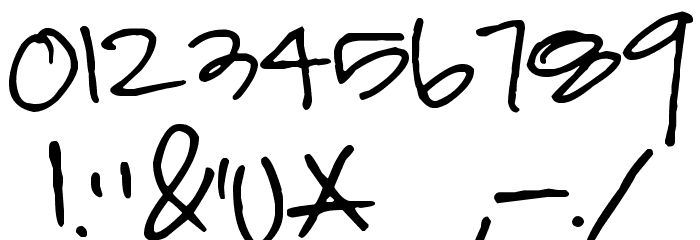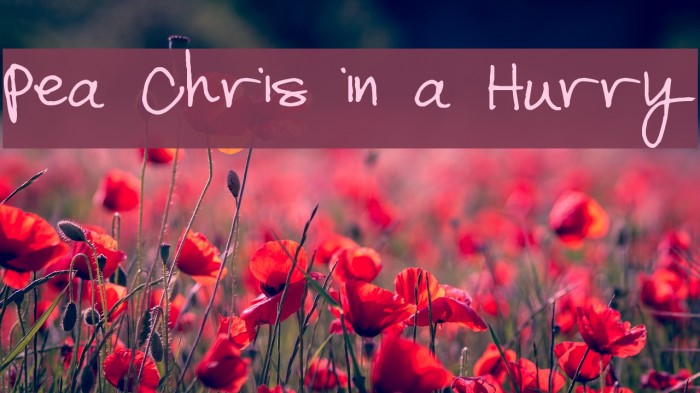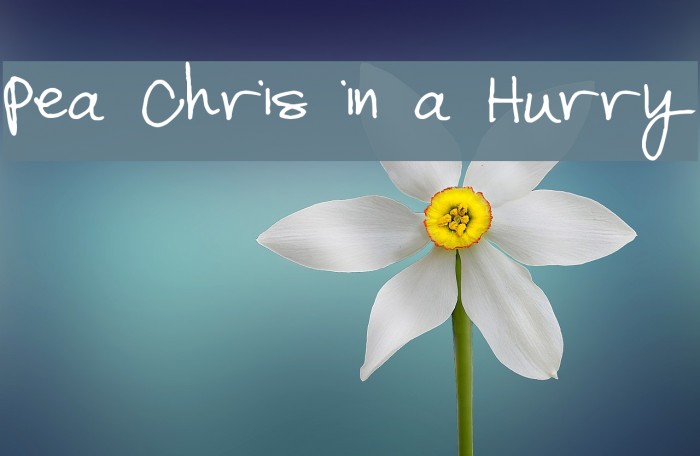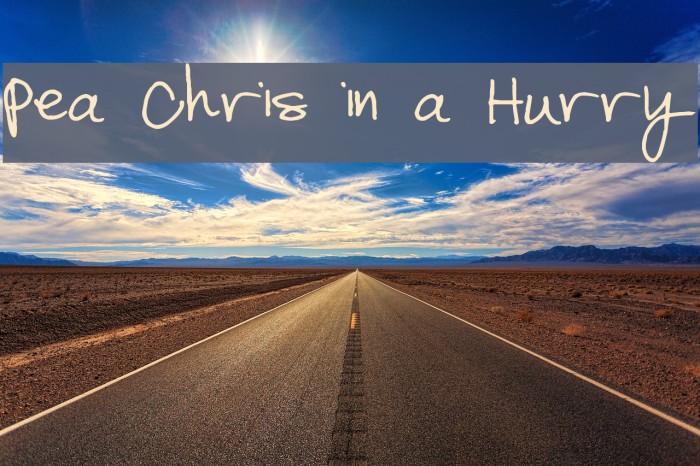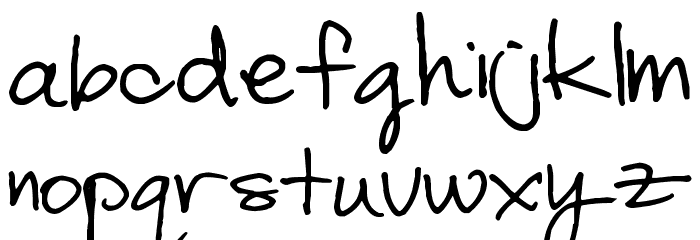
Pea Chris in a Hurry Font
Pea Chris in a Hurry Description
This font exudes a playful and casual handwritten style, characterized by its loose and informal strokes. The letters are unevenly spaced, giving it a spontaneous and lively appearance. The uppercase and lowercase letters maintain a consistent style, with slightly exaggerated curves and loops that add to its whimsical charm. The numbers and special characters follow the same playful design, making it versatile for creative projects. Its informal nature makes it ideal for projects that require a personal touch, such as greeting cards, invitations, or playful branding materials.
A playful, casual handwritten font with loose, informal strokes from Uncategorized fonts.
- Proposed Projects: Ideal for greeting cards, invitations, playful branding, and personal projects.
- Character Spacing: Wide
- Overall Style: Casual
- Use Case: Headlines, Informal text, Creative projects